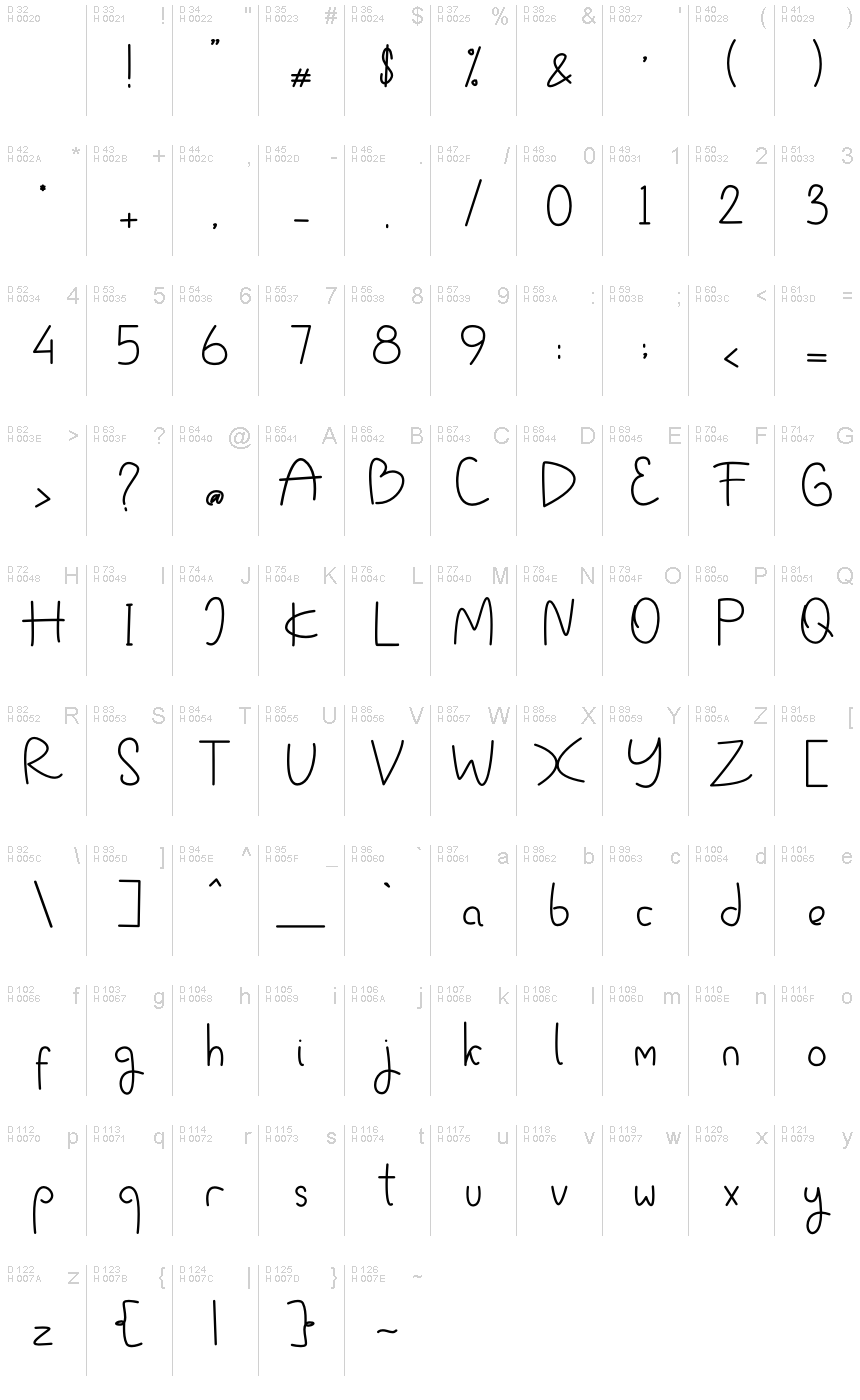
Wonderland
Wonderland, designed by Sely Andini, is a font that encapsulates charm and whimsy in its delicate handwritten style. With strokes that evoke the fluidity of ink on paper, Wonderland offers an authentic touch to any project, bringing personality and warmth. Its gentle form makes it ideal for invitations, greeting cards, and branding where a personal, inviting feeling is desired.
This font's light touch lends itself to designs that require elegance without overwhelming the senses. Whether it graces the cover of a novel or adds sophistication to personalized stationery, Wonderland ensures your message is conveyed with grace and intimacy.